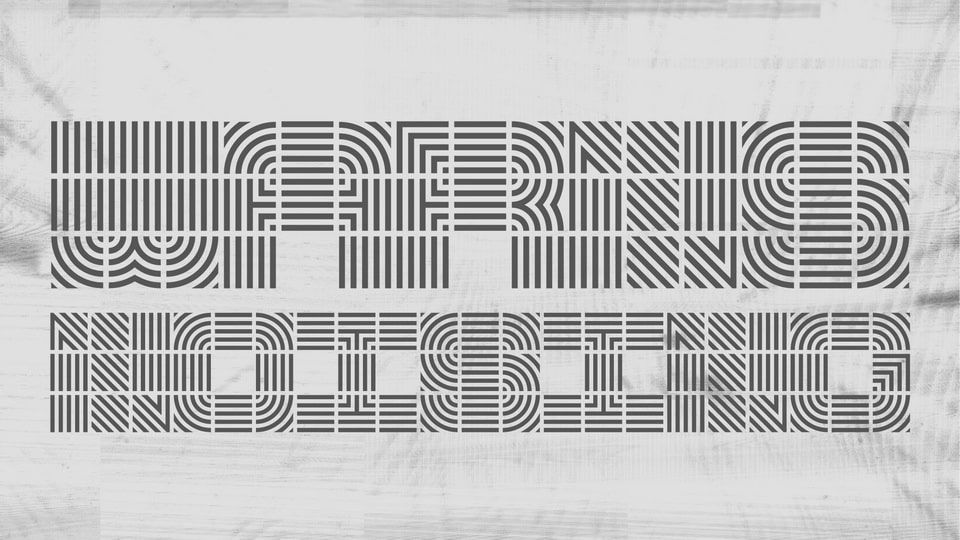
Feb 4, 2025DisplayWarns Noising Font Warns Noising is a unique display typeface designed in op-art style. With its modular, building-block characters, the font is perfect for large and graphic headers, eye-catching posters, typographic artworks. Font DetailsDesigned by: Amari DesignWebsiteLicense: Free for commercial use Download Warns Noising FontFile size: 28.03 KBCreated: February 16, 2025Updated: February 16, 2025 Download Explore similar fonts Square Baby Font Coastal Change Font Shizuoka Cyberpunk Font Gelfitt Font Netech Font Crossed Learning Font # Block# Creative# Futuristic# Square# Unique More fonts by Amari DesignAmari Font 11/100Amari Font 7/100Amari Font 9/100Amari Font 12/100Amari Font 20/100Amari Font 5/100Amari Font 34/100Amari Font 3/100